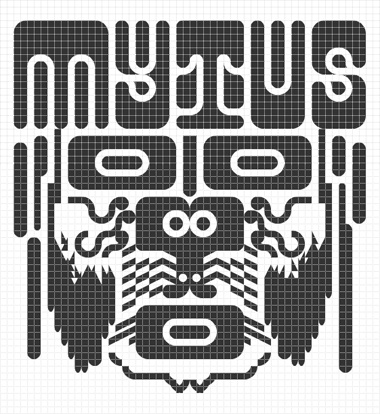
This is a beautiful piece of work. The interior curves of S, Z and 3 are especially lovely.
You probably made I & 1 the same on purpose, and O & zero as well. But did you intend for U and V to be identical? I can't see any difference between them.
Thank you very much for this comment!
Yes, you´re right. I changed the 'U'...seems to be better like this, what do you think?
Also changed the '1' and made the numbers a bit smaller, but I am not sure yet if I like them more when they have the size of the letters, I might change it again later.
That sample doesn´t show out the font, but it was inspired by the letters. And the eyes and the mouth are 'O's and the nose a 'B'.
The U is better now. I also like the new 1, but I prefer the full-size numbers. Of course, it's your choice.
Great sample, too! :)
Yes, I think you´re right and as I said...I reconstructed the numbers to be full-size.
This is a great design. And the sample is awesome! love the sample